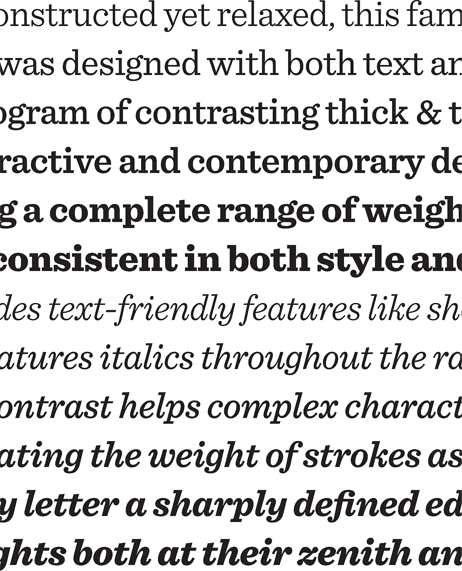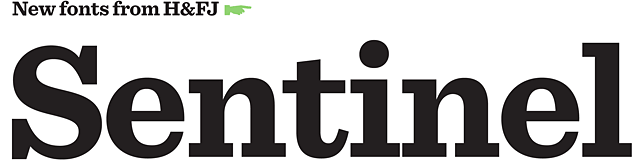
Sentinel with Knockout
This broad collection of American gothics brings out Sentinel's more colorful side, helping the fonts go sentimental, charming, flamboyant, or brash.
Sentinel with Chronicle
In the company of this high-performance news face, Sentinel looks bold and pragmatic — the perfect way to achieve a strong editorial voice in any medium.